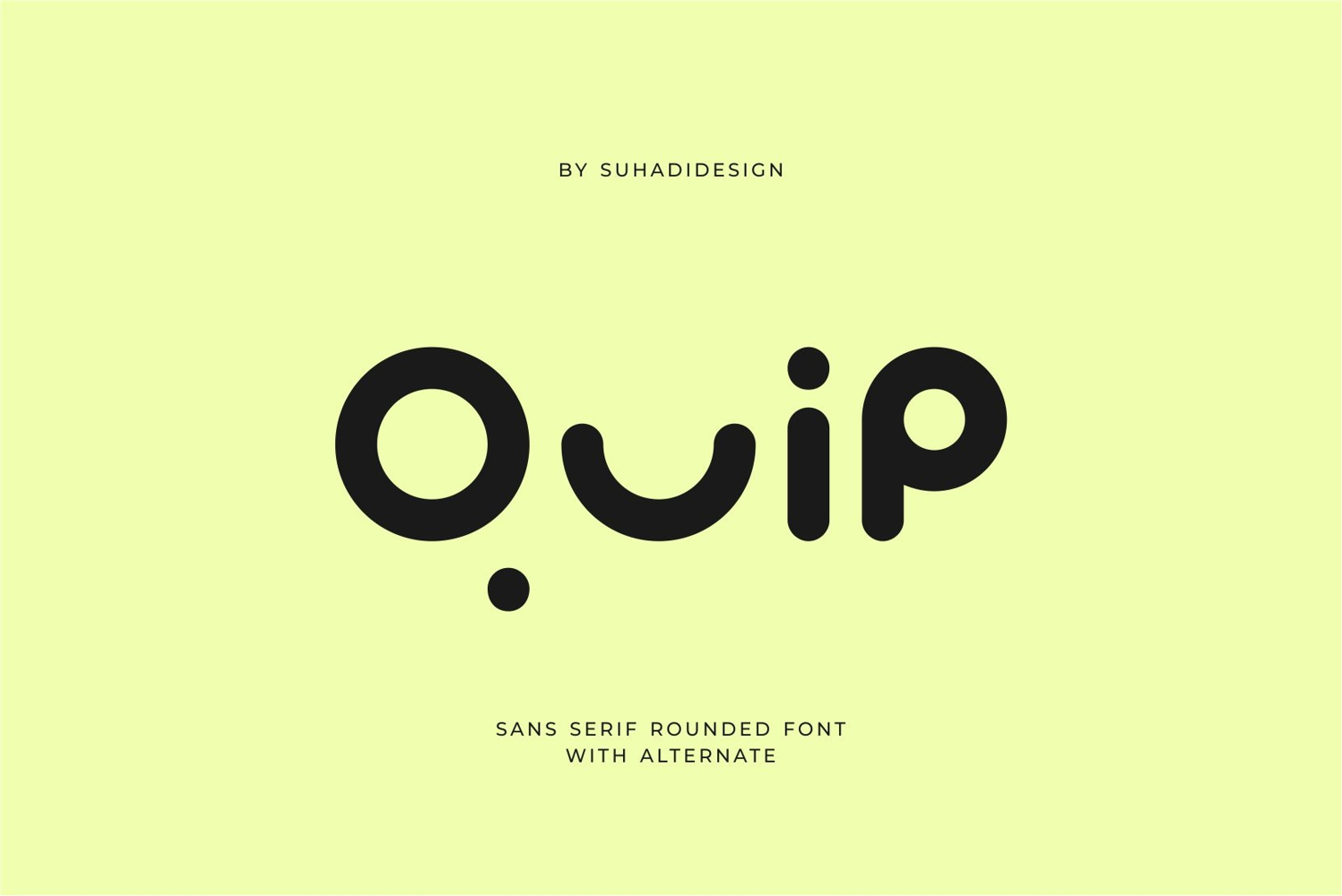
Quip - Sans Serif Rounded Alternate
Quip
Quip - Sans Serif Rounded Alternate
Following market demand, I created a minimalist sans serif font that's contemporary, elegant, and cool. Therefore, I decided to create this sans serif font. Quip is a cool font for millennials and Gen Z, presented in a modern style that's a market favorite. We've kept this font looking cool, classy, modern, stylish, up-to-date, and easy to use. Quip is the perfect choice for logos, brands, companies, startups, labels, fashion, branding, brand names, and other projects. Quip is here to take your designs to the next level.
Quip's font style will make you enjoy designing and benefit from the cool design results of this font. Stay tuned for more font updates :)
• Alternate